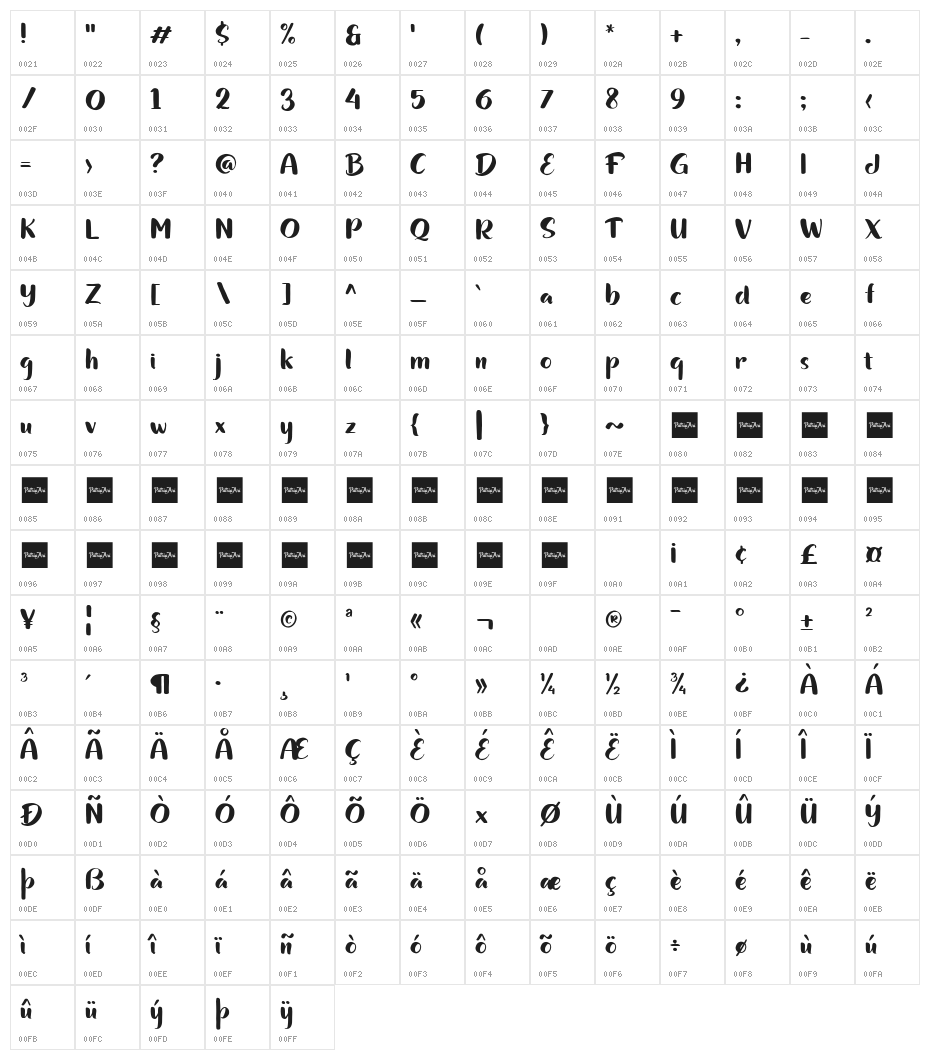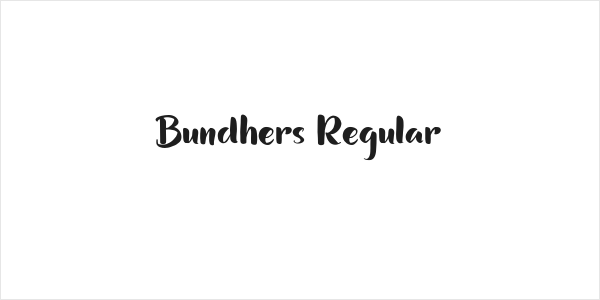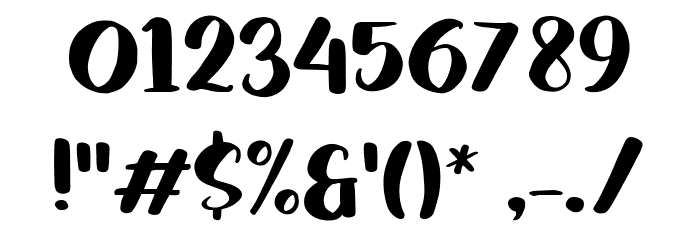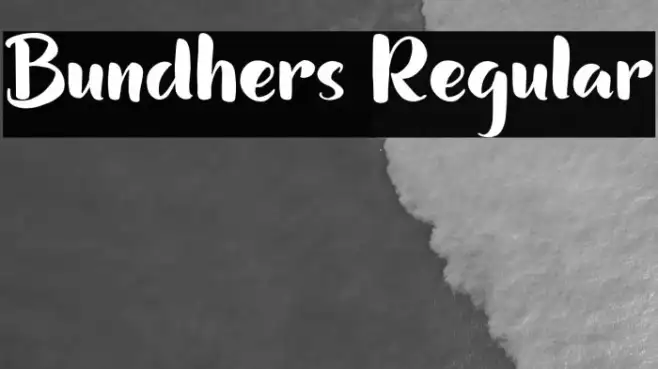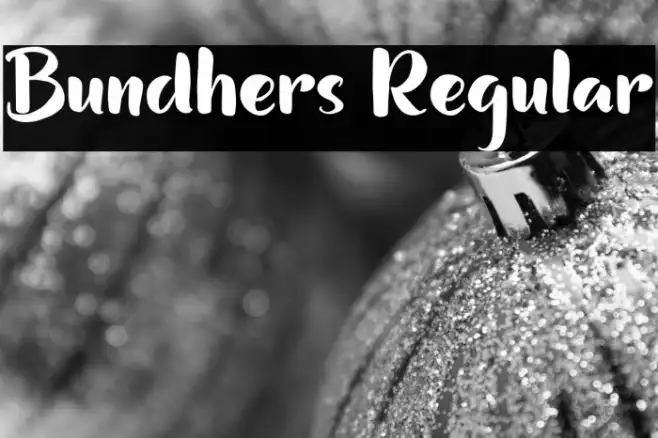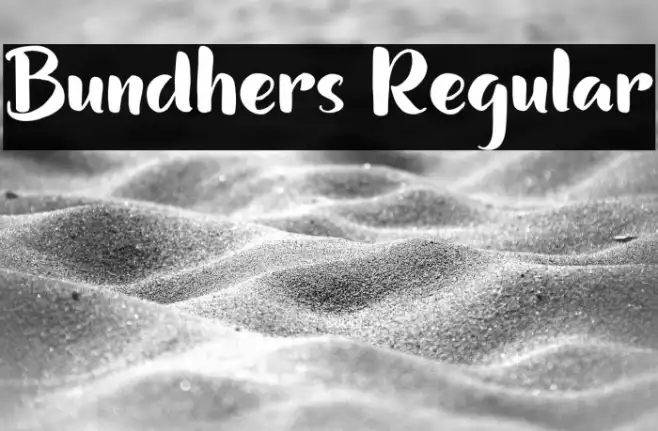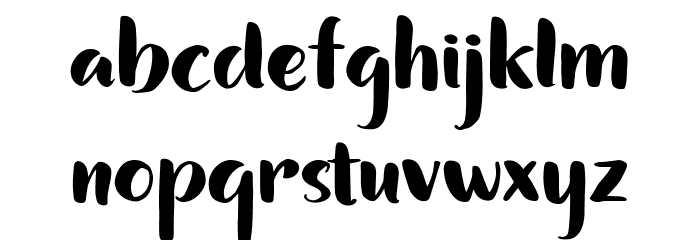
Bundhers Regular Font
Bundhers Regular Description
This font features a bold, playful style with a handwritten feel. The characters are rounded and have a smooth, flowing appearance, giving them a friendly and approachable vibe. The uppercase letters are slightly larger and more prominent, while the lowercase letters maintain a consistent style with subtle variations in stroke width. The numerals are clear and easy to read, matching the overall aesthetic. Special characters are designed with the same playful touch, ensuring consistency throughout. This font is versatile and can be used in various design projects that require a personal and informal touch.
| Overall Style | Playful, Informal |
| Use Case | Headlines, Logos, Social media graphics |
| Proposed Projects | Ideal for greeting cards, children's books, playful branding, and social media graphics. |